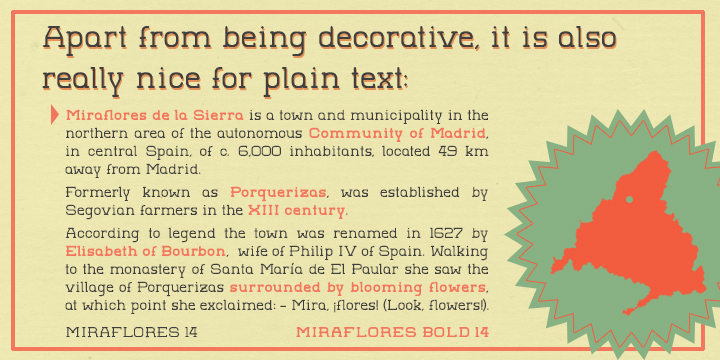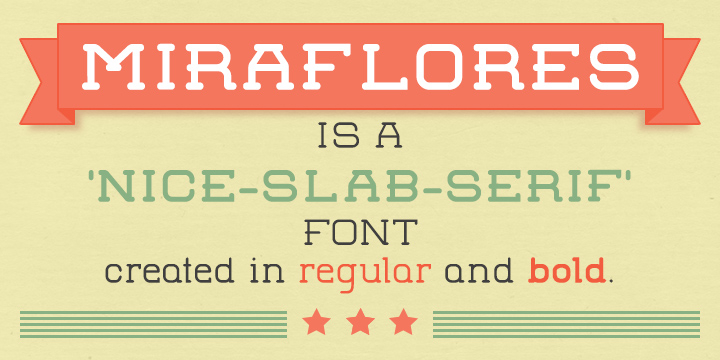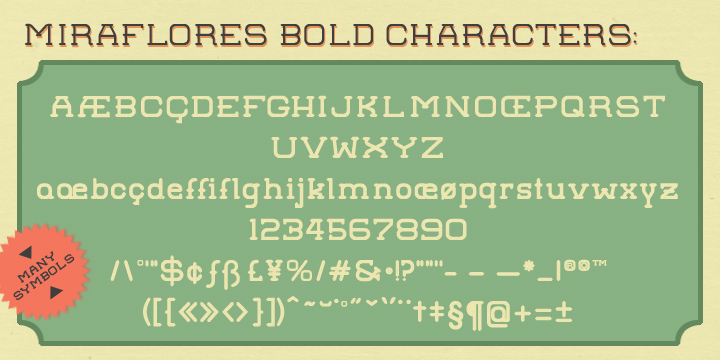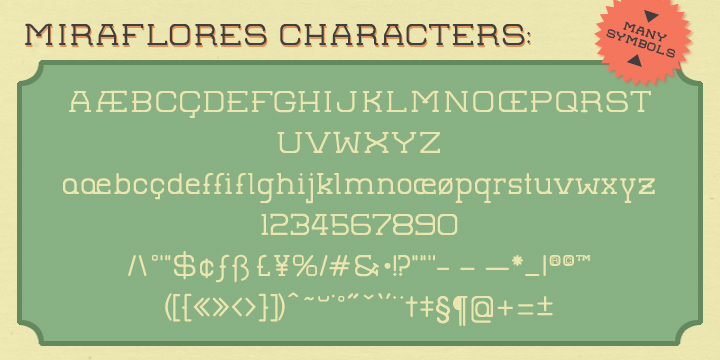
GL Miraflores is a display slab font family. This typeface has two styles and was published by German Leon.
GL Miraflores is a nice slab serif font with the name of a Spanish village. It is an elegant vintage resource perfect for decoration, but also works perfectly for plain text, as you can see in the previews.
The origin of the inspiration to create it is in the free font ‘Molesk’ as you can see in the capital letters. Hope it will be really usefull for your arts from now.